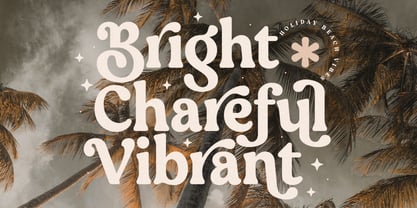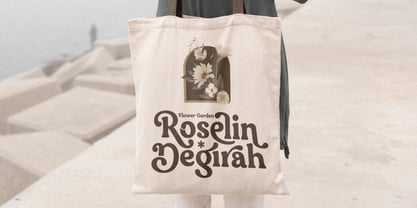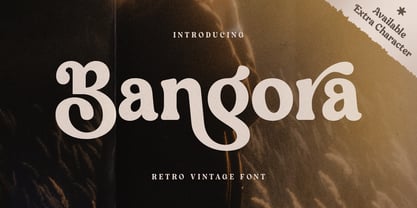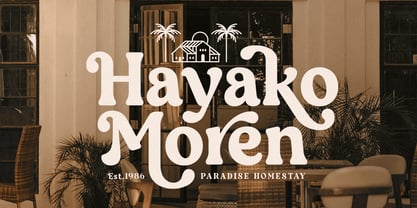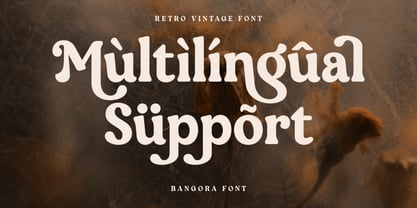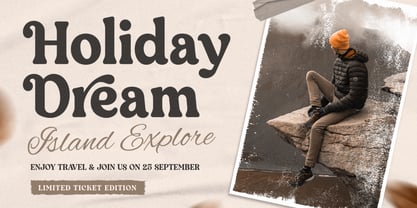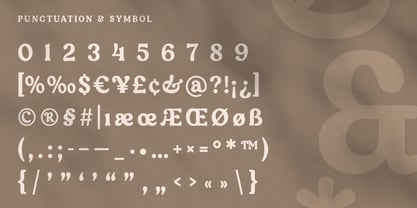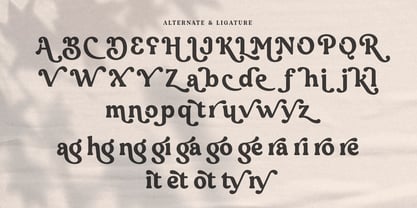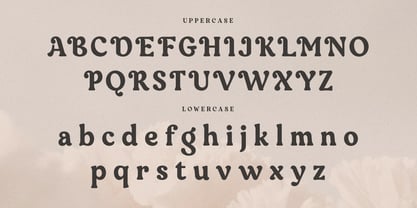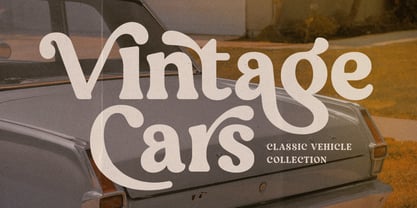
Bangora
The Bangora Font Family was designed by Zamroni Hamzah and published by Sensatype Studio. Bangora contains 2 styles and family package options. More about this family
Bangora - Retro Vintage Font
Bangora is a retro vintage font that encapsulates the nostalgic charm of classic design eras, perfect for projects seeking a timeless touch. Inspired by iconic signage and advertisements from the past, Bangora adds character and warmth to any design, making it an excellent choice for branding, packaging, and more. Its unique style is ideal for anyone looking to infuse their projects with a sense of history and artistic flair.
With bold letterforms and a distinct vintage vibe, Bangora is versatile enough to fit both modern and traditional aesthetics. Whether it's for logos, posters, or headlines, Bangora's retro elements make it stand out, providing a unique personality to each piece. Its carefully crafted strokes and details evoke a feeling of authenticity that resonates with audiences seeking a nostalgic look.
From vintage-inspired logos to captivating posters, Bangora is the font to set the tone for your designs with its bold and stylish characters.
Bangora Retro Vintage Font Features:
• Retro Vintage Ligature & Alternate Characters Ready
• Punctuation, Number, and Symbol
• Uppercase and Lowercase
• Opentype Features
Multilingual Characters available for: Afrikaans, Albanian, Asu, Basque, Bemba, Bena, Breton, Chiga, Cornish, Dutch, English, Estonian, Filipino, Finnish, Friulian, Galician, German, Gusii, Indonesian, Irish, Italian, Kabuverdianu, Kalenjin, Kinyarwanda, Luo, Luxembourgish, Luyia, Machame, Makhuwa-Meetto, Makonde, Malagasy, Manx, Morisyen, North Ndebele, Nyankole, Oromo, Portuguese, Quechua, Romansh, Rombo, Rundi, Rwa, Samburu, Sango, Sangu, Scottish Gaelic, Sena, Shambala, Shona, Soga, Somali, Spanish, Swahili, Swedish, Swiss.